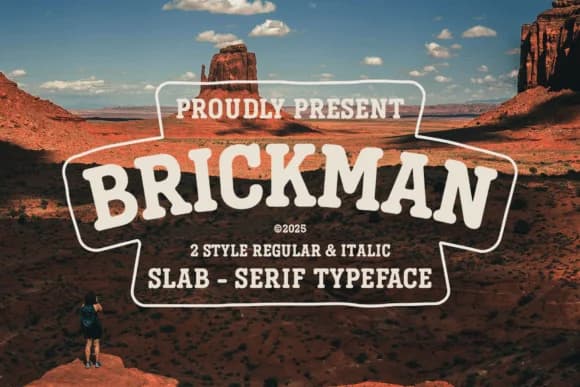
Itbrickman Regular delivers impact through chunky, square-set letterforms that command attention on any layout. Created by Indotype Foundry, this slab serif brings the visual weight and character of old Wild West advertisements and vintage handbills straight into modern design. The letters sit solid and confident, with slightly softened corners that keep things from feeling too harsh, so the typeface reads as both authoritative and approachable at the same time.
Two weights give you flexibility: Regular and Italic styles work together to add motion and emphasis without forcing you to swap typefaces mid-project. You get full multilingual character support plus a complete set of numerals and punctuation, so coverage gaps won't interrupt your workflow. At any size, the heavy serifs stay bold and readable, cutting through noise on a label just as effectively as on a large poster.
This typeface suits designers building brand identity systems for craft beverage packaging, rodeo event posters, retro diner menus, and Western-inspired product labels. Its weight and personality work equally well for album cover art, heritage storefront signage, and display headlines in editorial layouts where you need something that refuses to whisper. Find Itbrickman Regular on Creative Fabrica and put it to work on projects that demand genuine character, not filler.
- Sturdy, Confident, Slab Serif
Itbrickman Regular Font is a slab serif font that shines as a display or heading face. Pair it with a clean sans-serif or serif font for body text β the contrast creates a clear hierarchy while the two styles stay balanced and easy to read.